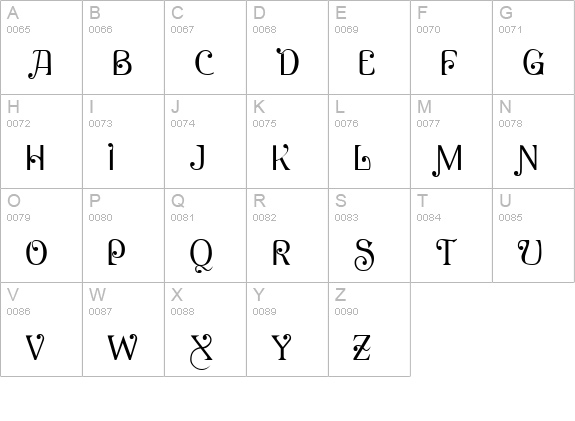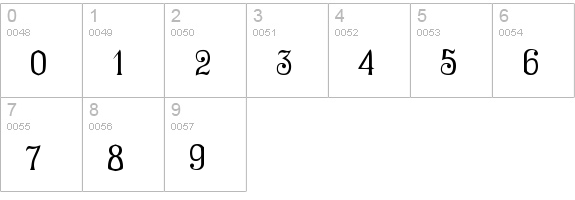
AcornSwash Regular Font Details
AcornSwash Regular is the standard, neutral variant in the AcornSwash typeface family \xE2\x80\x94 well suited to general body text, paragraphs, and standard typographic work.
AcornSwash Regular font is a charming and versatile typeface that exudes a sense of warmth and friendliness. Its smooth lines and playful curves make it perfect for a wide range of design projects, from invitations to logos to packaging. The elegant swashes and flourishes add a touch of sophistication, while still maintaining a sense of approachability. What makes AcornSwash Regular font even more appealing is that it is available for free download at FontsMarket.com. This means that you can easily add this delightful font to your collection without breaking the bank. Whether you're a seasoned designer looking to refresh your font library or a newcomer in search of the perfect typeface for your next project, AcornSwash Regular font is sure to impress with its timeless appeal and effortless charm. Download it today and elevate your designs with this beautiful and freely available font.